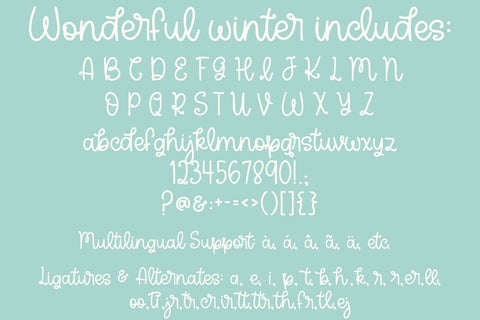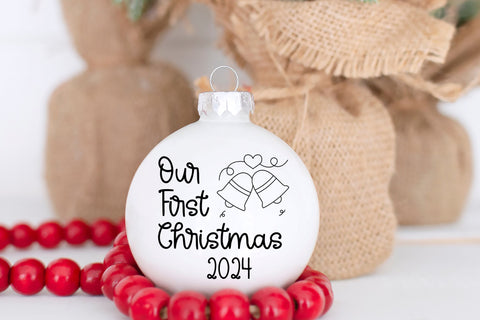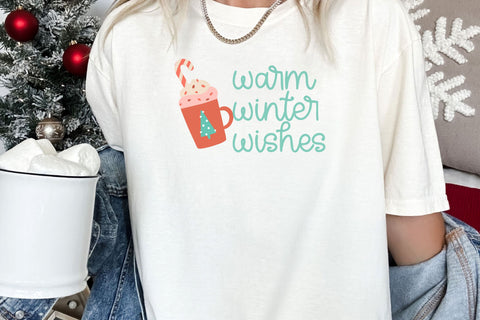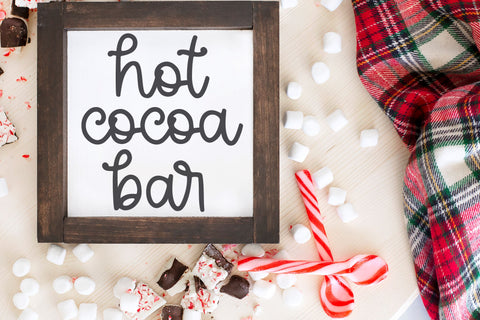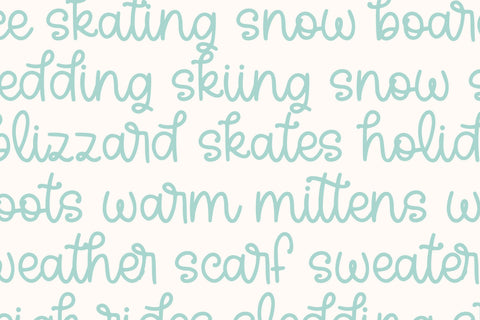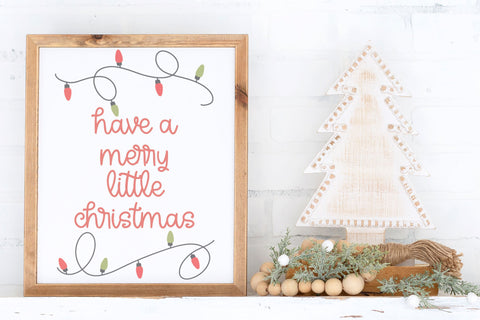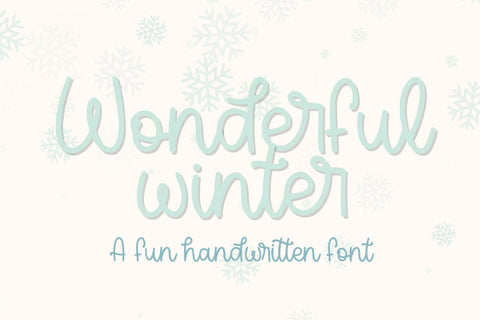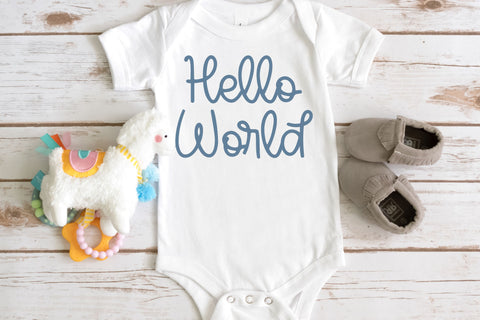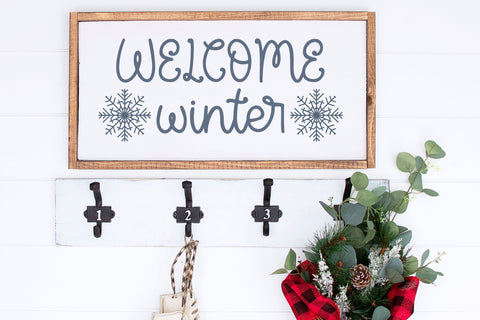
Wonderful Winter, Cute Handwritten Font for Cricut, Cursive Christmas Handwriting
Introducing Wonderful Winter our adorable handwritten Font for Cricut and more, perfect for all your creative projects! Our handwriting font is compatible with SVGs, Goodnotes, Procreate, and many other programs. With its elegant curves and smooth strokes, this cute cursive font brings a delightful touch to invitations, greeting cards, and personalized crafts. Transform your designs into stunning works of art with our versatile script Font, the ultimate choice for anyone seeking a captivating and expressive typeface for their projects.